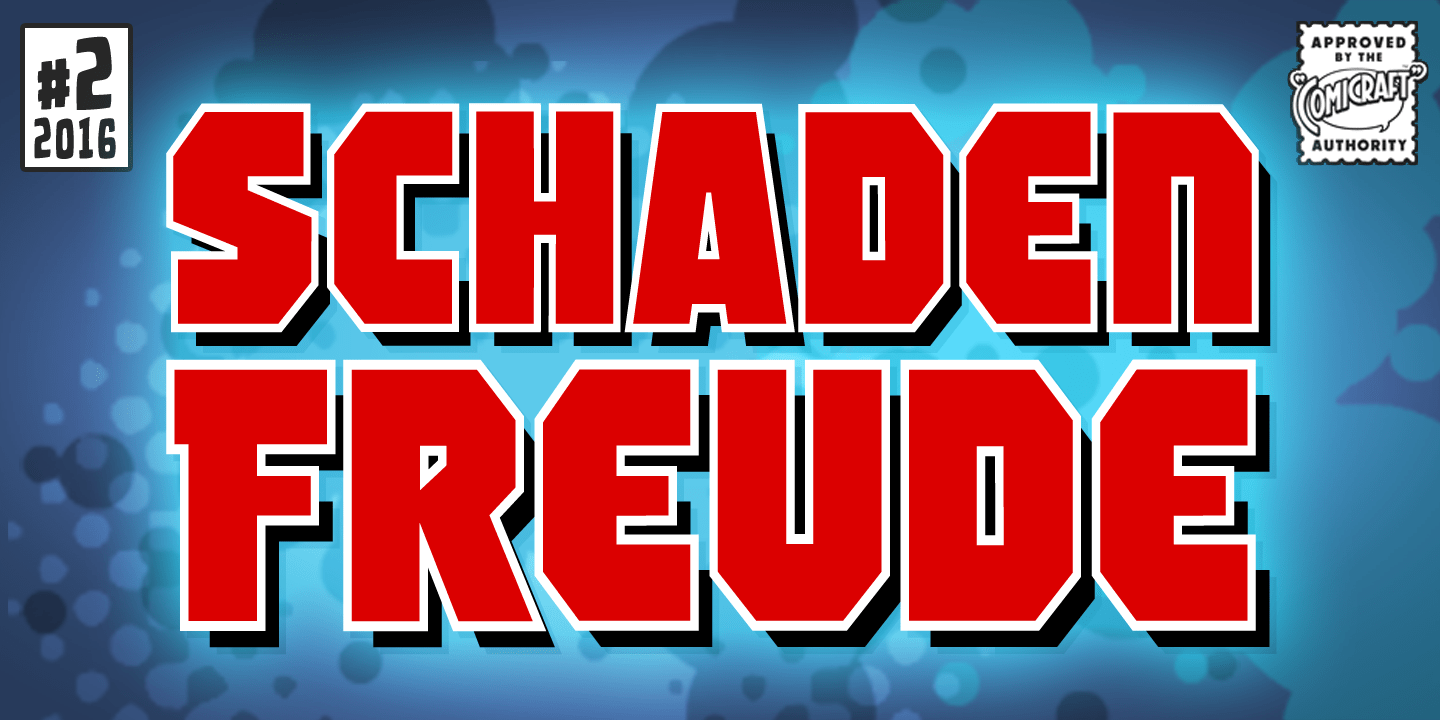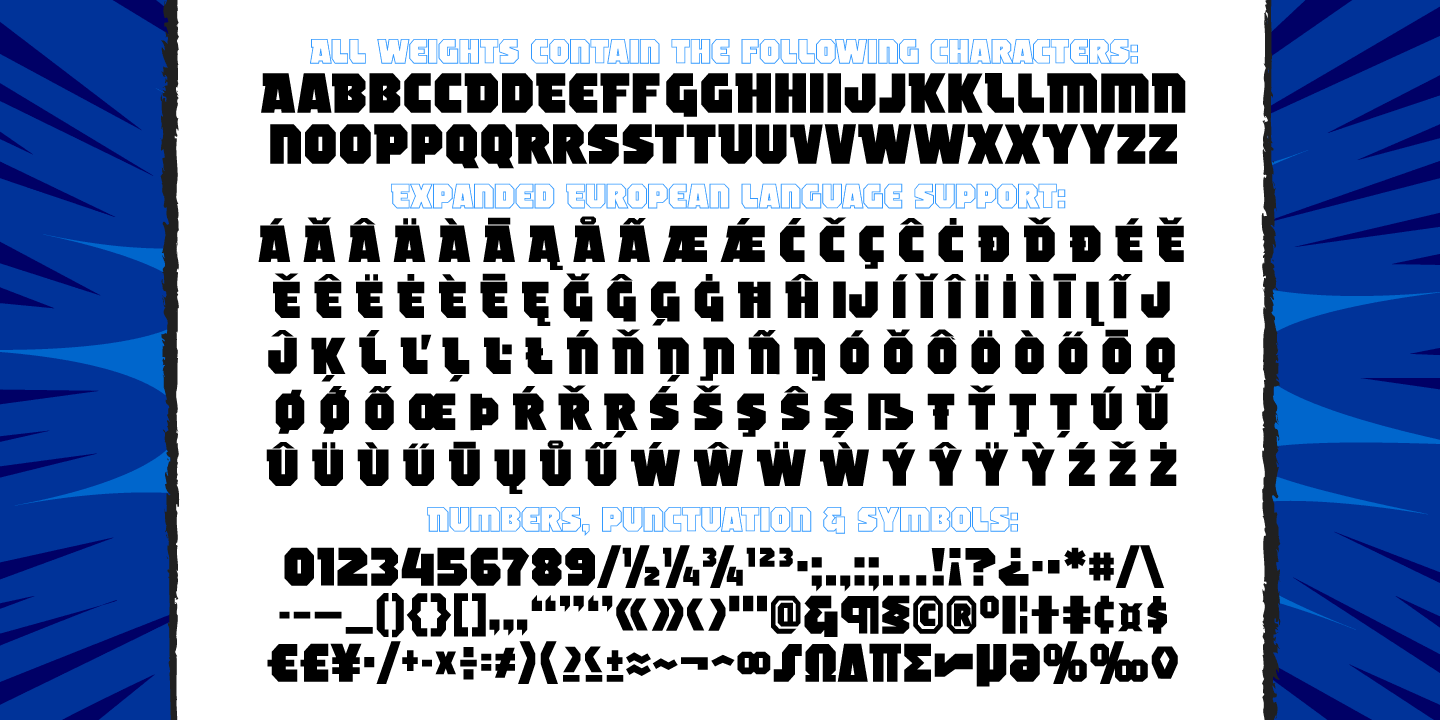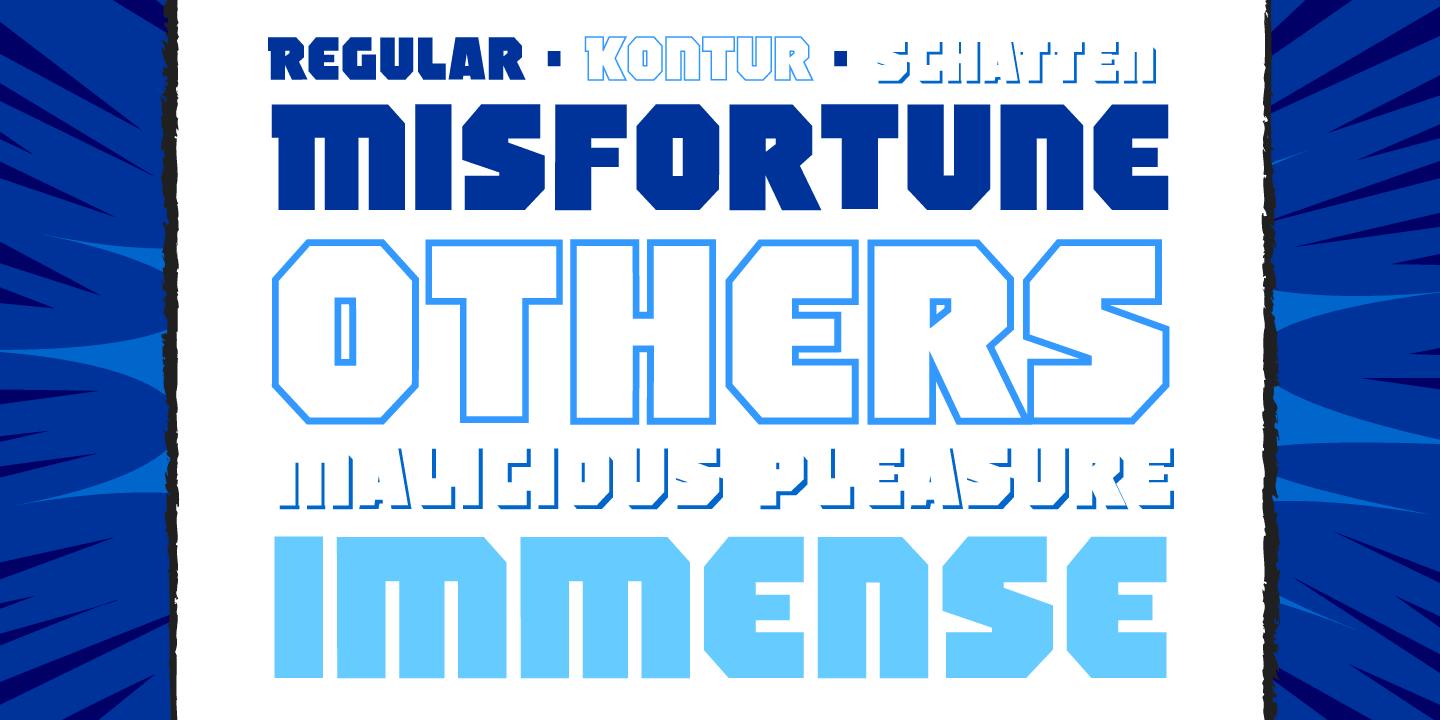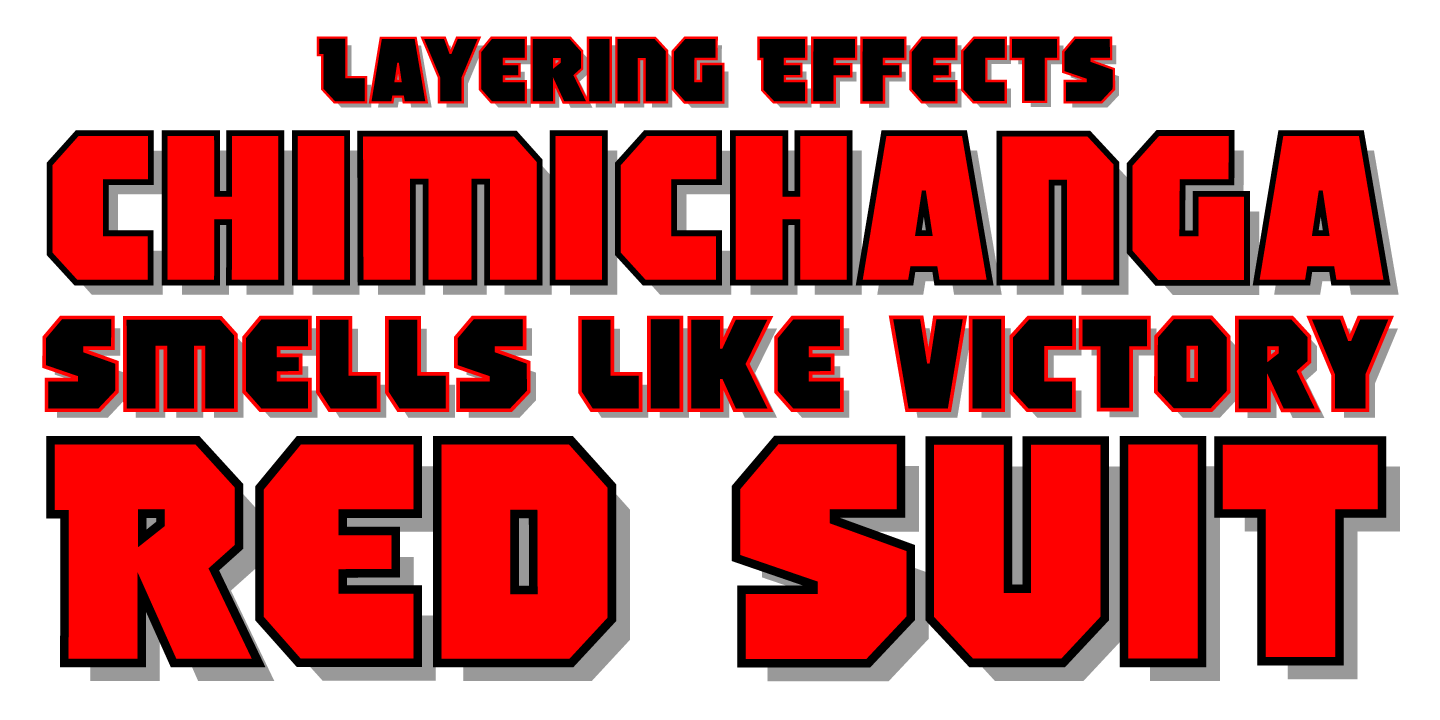
Schadenfreude
Font Family by Comicraft Fonts
We don't mean to gloat, but we have to say that it gives us immense, malicious pleasure and joy to supplant other popular germanesque letterforms with this, remarkably superior font.
This successful addition to our DEAD cool POOL of ACHTUNG BABY alphabets will, no doubt, make you feel that your own library of teutonic fonts is now severely lacking. We're that mercenary, we're Mercs with Mouths, you might say.
Wait, did we say that we DON'T mean to gloat? Actually, we do.
Schadenfreude Regular
Schadenfreude Schatten
Schadenfreude Kontur
Schadenfreude Farbe